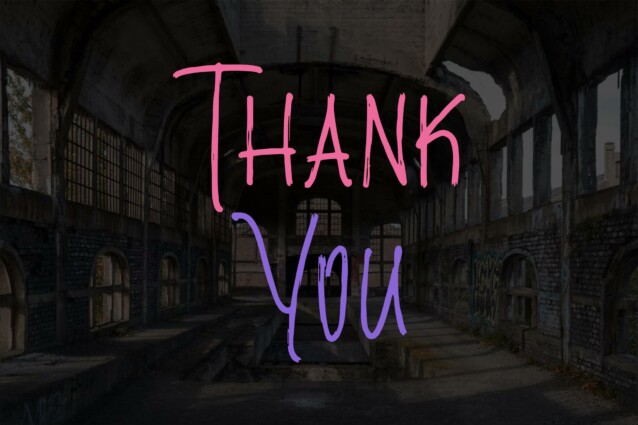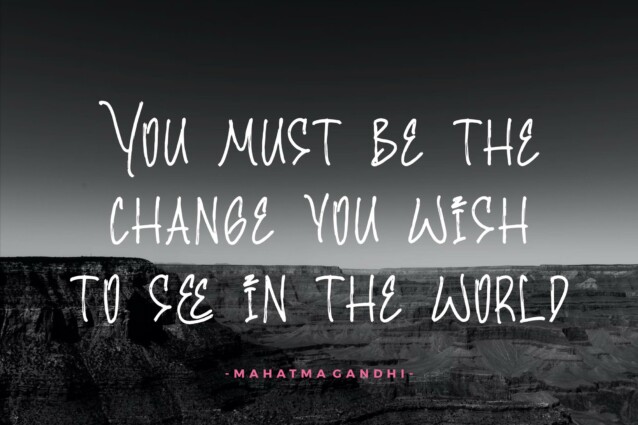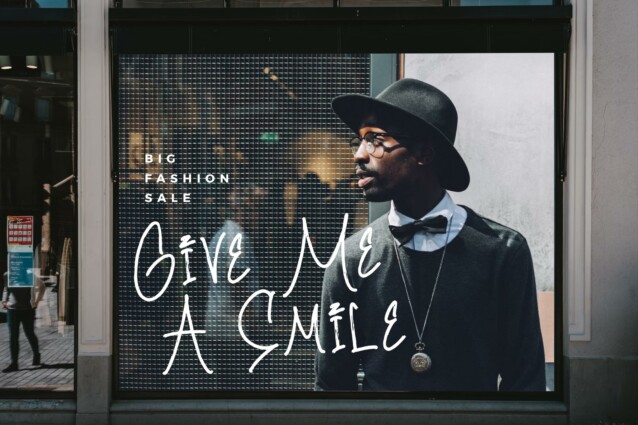
Blagier Swallow Font
Blagier Swallow Font is Urban Brush Display Font, suitable for any projects such as: logos, branding projects, homeware designs, product packaging, mugs, quotes, posters, shopping bags, t-shirts, book covers, name card, invitation cards, greeting cards, label, photography, watermark, special events, and all your other lovely projects that need a beautiful script taste.